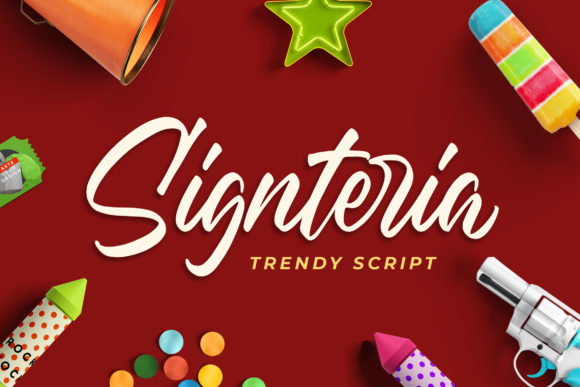
Signteria Font
Unleash your inner artist and embark on a creative journey with Signteria Font, the captivating script font that breathes life into your designs. Its whimsical strokes and playful characters dance across the page, transforming ordinary words into captivating works of art. Experience the magic of Signteria Font and witness your ideas blossom into extraordinary masterpieces.
Immerse yourself in the world of Signteria Font, where elegance and charm collide. This enchanting script font captivates with its flowing lines, delicate curves, and a touch of playful sophistication. Each letter is a carefully crafted work of art, designed to evoke emotion and add a layer of depth and personality to your creations. Elevate your designs to new heights with Signteria Font and let your imagination run wild.
With Signteria Font, versatility knows no bounds. Its adaptability shines across a wide range of design projects, from eye-catching logos and branding to stunning invitations and social media graphics. Whether you're a seasoned designer or just starting your creative journey, Signteria Font empowers you to express yourself freely and create designs that leave a lasting impression. Unleash your creativity and let Signteria Font guide you towards design excellence.
Dive into the world of Blankids Studio, the creative minds behind Signteria Font. Their passion for crafting remarkable fonts shines through in every stroke and curve of this extraordinary script. Blankids Studio understands the power of typography and has poured their heart and soul into creating a font that resonates with artists and designers worldwide. Trust in their expertise and let Signteria Font become your go-to choice for captivating designs that speak volumes.